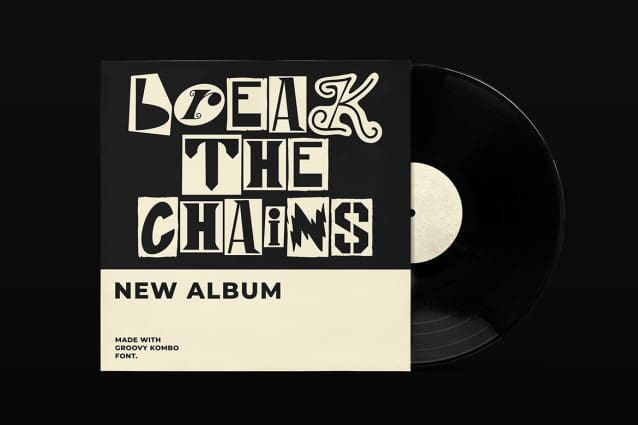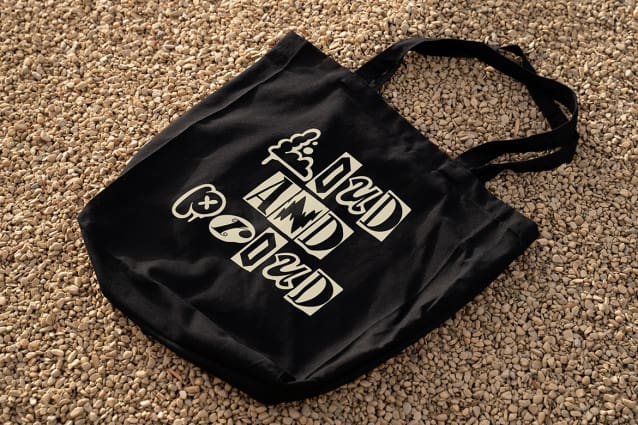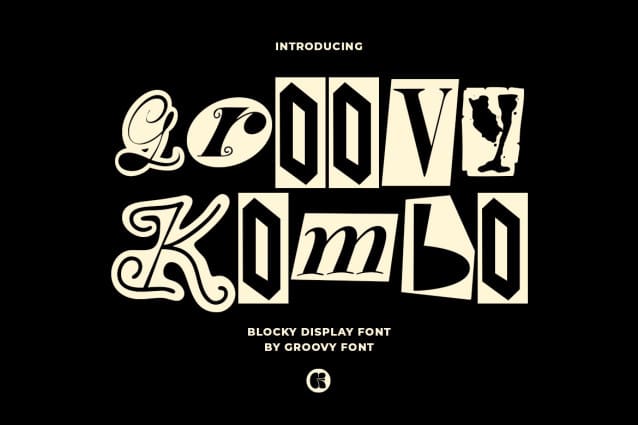
Groovy Kombo Font
Groovy Kombo Font is a bold and striking block display font that combines various styles of block letters. This unique font offers a mix of different block letter designs, creating a visually dynamic and versatile typeface. Whether you’re looking to make a statement or add a modern edge to your designs, Groovy Kombo is the perfect choice. Stand out with this eclectic and eye-catching font that brings a fresh twist to your projects!